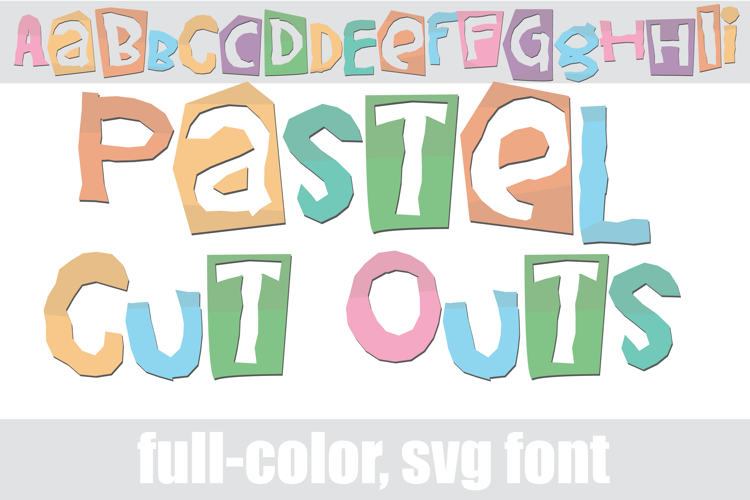
Pastel Cut Outs Color Font
This full-color, pastel-colored font features a cut-out, youthful lettering style. There is an alt case of each letter with a different color combination.